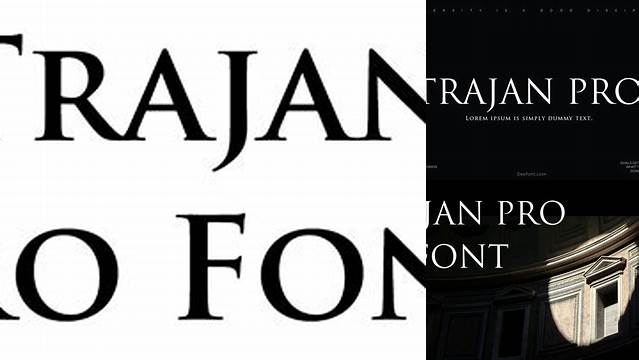
Hey guys! Looking for a classic and powerful font to make your designs pop? You're in luck! Today, we're diving into the world of the Trajan Pro Bold font – a font that's been around for ages and is still a total favorite. This article is your one-stop shop for everything you need to know about this amazing typeface, including where to get a free download of the Trajan Pro Bold font (type 1 western). Let's get started!
Trajan Pro Bold: A Timeless Classic
Trajan Pro Bold is more than just a font; it's a statement. Inspired by the inscription on Trajan's Column in Rome, it carries a sense of history, strength, and elegance. The bold weight takes this even further, giving your text a commanding presence that's hard to ignore. You'll find this font used everywhere, from movie posters and book covers to branding and headlines. The versatility of Trajan Pro Bold is what makes it such a beloved choice, especially its readability and impact. This font perfectly captures the essence of the Roman alphabet with its distinctive serifs and clean lines. The bold version gives it extra weight and power that is perfect for grabbing attention. The font has been used for numerous high-profile projects, and its recognizable style makes it a great option for various purposes. This font is very popular in graphic design, and its simple yet elegant design makes it a favorite choice for professional designs. Designers appreciate how easy it is to use and how well it fits many design styles. It's not just a font; it's a design tool that can transform any text into something that stands out. Overall, Trajan Pro Bold is an excellent choice for anyone looking to bring a touch of history and authority to their projects. The strong character design helps your texts to stay readable, even at smaller sizes or from afar. The font's popularity and timeless design mean it will always be relevant. With Trajan Pro Bold, you can create a strong message with style. In its bold variation, the font becomes even more captivating and impressive. This is great for anyone looking for a font that makes a bold statement.
Origins and Inspiration of Trajan Pro Bold
Let’s dive deep, shall we? Trajan Pro Bold, as the name suggests, is deeply rooted in history. Its design is inspired by the Roman monumental capitals that are found on Trajan’s Column. The column, which stands in Rome, Italy, is a true testament to the artistry of ancient Rome, with detailed inscriptions carved into its stone. The font seeks to replicate this elegance, with each letter meticulously designed to capture the essence of the original carvings. The choice of the bold variant further emphasizes the strength and grandeur that characterize the historical source. The font is a tribute to the artistry and skill of the ancient Romans. In short, the font doesn’t just look good; it carries with it a rich legacy. The story behind the font adds extra weight to your message and gives it a sense of timelessness. The font captures the details of the Trajan column, and this inspiration gives a specific character to the font. It’s an excellent option for anyone looking for a historical font. The design pays homage to the past, and the font's elegance and readability make it a perfect choice for a wide range of uses. The design elements are very detailed and provide great inspiration for design projects.